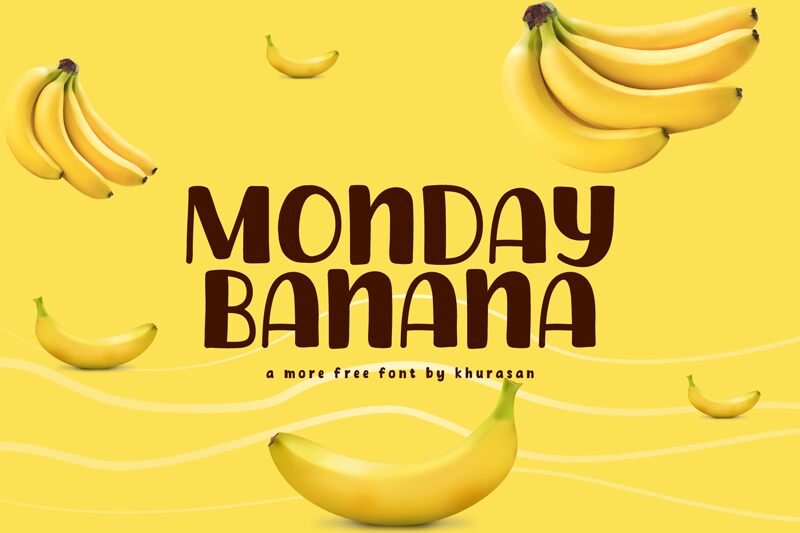
Monday Banana
Monday Banana, designed by Khurasan, is a bold and playful display font that adds a touch of whimsy to any design. With its cartoon style, this modern and cute typeface is ideal for various projects.
Use it to create eye-catching posters that grab attention and make a statement. Give your logos a fun and unique twist with Monday Banana's distinctive characters. It also works well for magazine layouts, adding a delightful charm to the pages. Whether you're designing book covers or banners, this versatile font will make your creations stand out from the crowd.
So unleash your creativity and let Monday Banana bring joy to your designs!